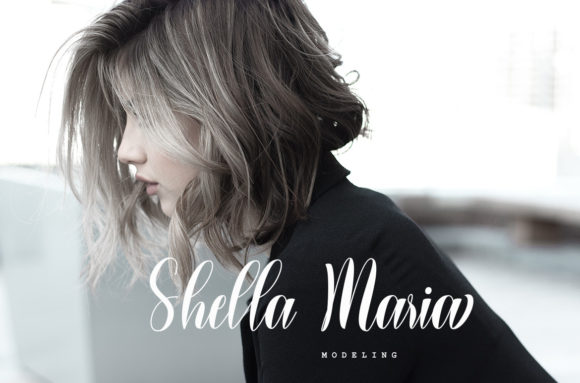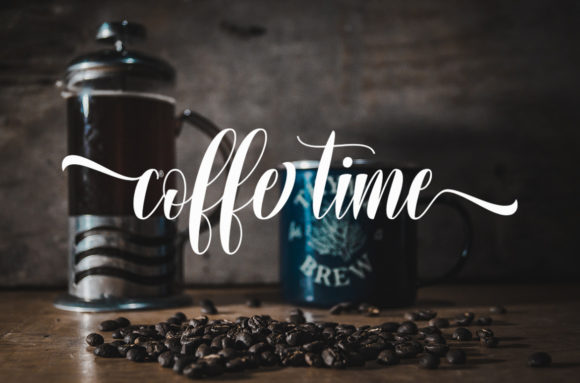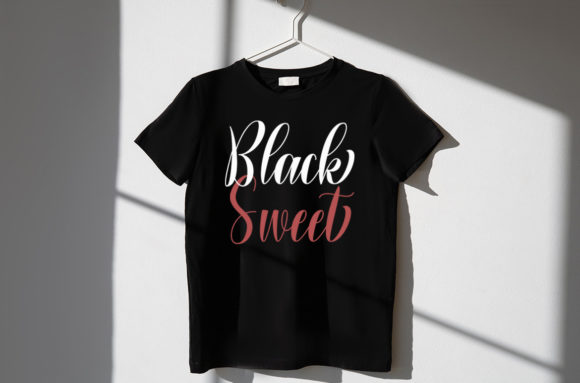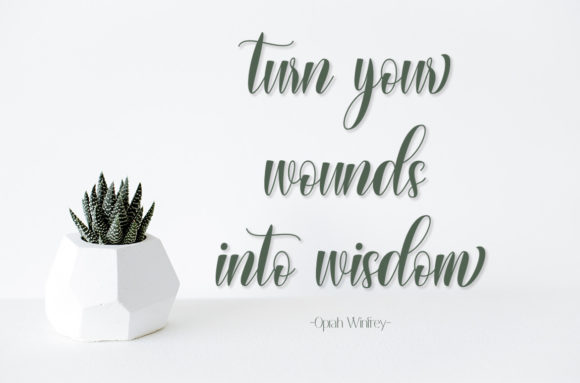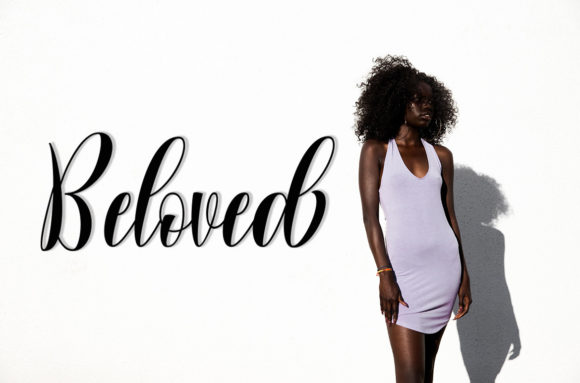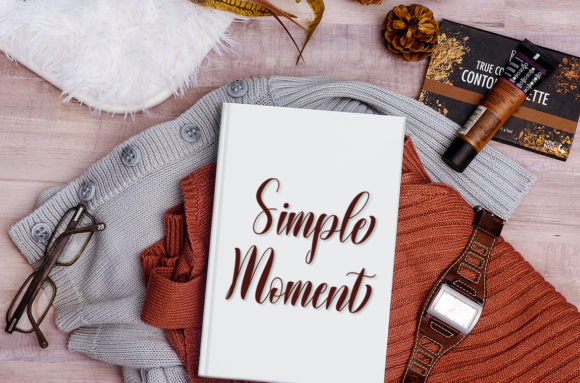
Introducing Darling Script Font: Elevate Your Designs with Elegance
In the world of typography, a well-crafted script font can make all the difference in creating visually stunning designs. Darling Script Font is one such gem that has been making waves in the design community. This beautifully balanced script font is perfect for a wide range of applications, from logos and t-shirt printing to sports designs and more. In this article, we’ll dive into the features and benefits of Darling Script Font, and explore how it can elevate your designs to the next level.
What is Darling Script Font?
Darling Script Font is a meticulously crafted script font that exudes elegance and sophistication. Its well-balanced design ensures that it looks outstanding in various contexts, making it an excellent choice for designers and crafters. The font’s flowing lines and curves create a sense of movement, adding a touch of dynamism to any design.
Key Features of Darling Script Font
- Well-balanced design: Darling Script Font boasts a perfectly balanced design, ensuring that it looks great in a wide range of applications.
- Suitable for various projects: From logos and t-shirt printing to sports designs and more, Darling Script Font is versatile enough to be used in numerous projects.
- Elegant and sophisticated: The font’s elegant and sophisticated design makes it perfect for creating high-end designs that require a touch of luxury.
- Easy to read: Despite its script nature, Darling Script Font is easy to read, making it an excellent choice for designs that require a clear and concise message.
Benefits of Using Darling Script Font
So, why should you choose Darling Script Font for your next design project? Here are just a few benefits of using this amazing script font:
- Adds elegance to your designs: Darling Script Font brings a touch of elegance and sophistication to any design, making it perfect for high-end projects.
- Versatile: The font’s versatility ensures that it can be used in a wide range of applications, from logos and t-shirt printing to sports designs and more.
- Unique: With its unique design, Darling Script Font helps you stand out from the crowd and create designs that are truly memorable.
Darling Script Font is perfect for a wide range of design projects. Here are some inspiration and ideas to get you started:
- Logos: Create stunning logos for businesses, events, or organizations.
- T-shirt printing: Design eye-catching t-shirts for sports teams, events, or promotions.
- Sports designs: Create jerseys, team logos, or promotional materials for sports teams.
- Wedding designs: Use Darling Script Font to create beautiful wedding invitations, programs, or decorations.
Darling Script Font is an exceptional script font that can elevate your designs to new heights. Its well-balanced design, elegance, and versatility make it perfect for a wide range of applications. Whether you’re a designer, crafter, or DIY enthusiast, Darling Script Font is an excellent addition to your toolkit. So why wait? Download Darling Script Font today and start creating stunning designs that leave a lasting impression!